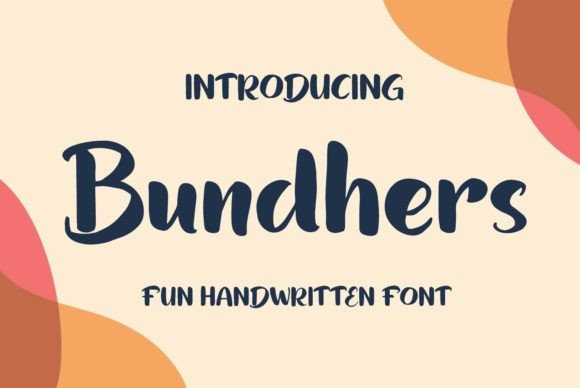
Unleash the captivating allure of Bundhers, a mesmerizing script font that will ignite your creative spirit and leave an unforgettable mark on your designs. Imagine the joy of crafting wedding invitations that exude elegance, birthday cards that radiate warmth, and personal branding that commands attention.
With Bundhers, the ordinary transforms into the extraordinary. Its bold, well-rounded strokes dance across the page, evoking a sense of artistry and authenticity that will captivate your audience. Let your imagination soar as you adorn logos with a touch of sophistication, ensuring that your brand stands out from the crowd.
But Bundhers is not just another font; it's an invitation to unleash your inner artist. Its versatility knows no bounds, making it the perfect companion for a myriad of projects. Whether you're a seasoned designer or simply seeking to add a touch of flair to your personal creations, Bundhers empowers you to create masterpieces that will leave a lasting impression.
Embrace the allure of Bundhers today and embark on a creative journey that will redefine your designs. Let its enchanting curves and bold presence ignite your imagination and elevate your projects to new heights.